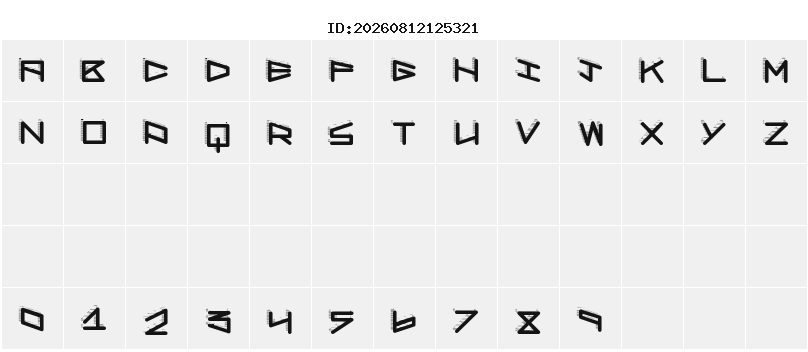
RobotShadow Preview
• Font Name: RobotShadow
• Font ID: RobotShadow:Version 1.00
• Full Font Name: RobotShadow
• Version: Version 1.00 April 29, 2012, initial release
• PostScript Name: RobotShadow
• Character Count: 64
• Designer: max infeld
• Manufacturer: xerographer.com
• Description: Made at Twin Palms in chico,california
About RobotShadow.ttf
RobotShadow.ttf is a modern, elegant sans-serif font designed for ultimate readability and visual harmony. Perfect for branding, headlines, web design, and print materials.